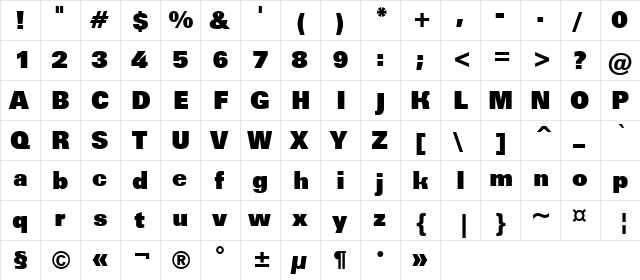
a_GroticExtraBlack Regular
Design Context for a_GroticExtraBlack Typeface
a_GroticExtraBlack offers clean, dependable letterforms without strong stylistic allegiance, making it a practical choice for designers who need flexibility.
Pro Tip: Pair a_GroticExtraBlack with a font of contrasting weight or personality to build a more expressive typographic hierarchy.